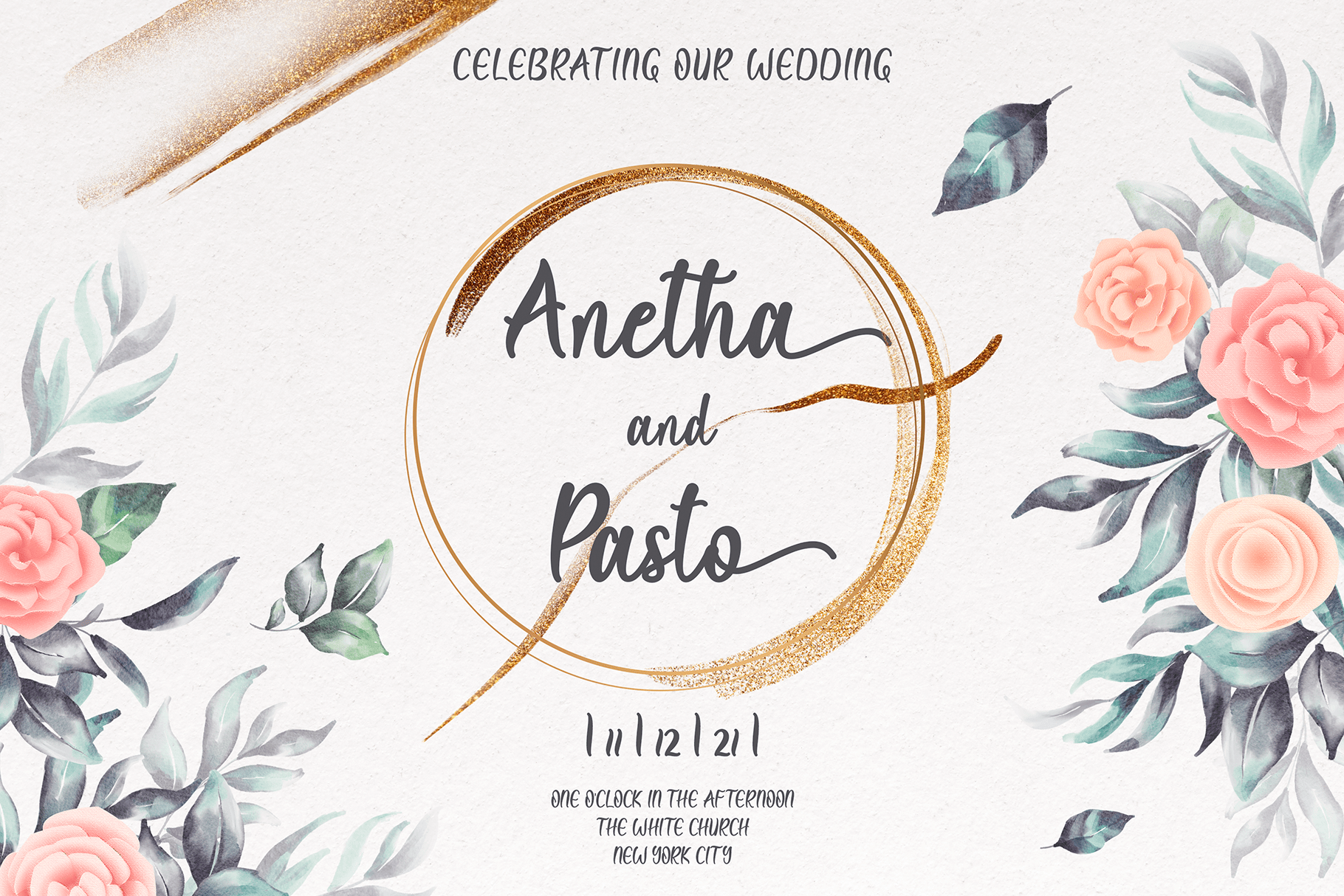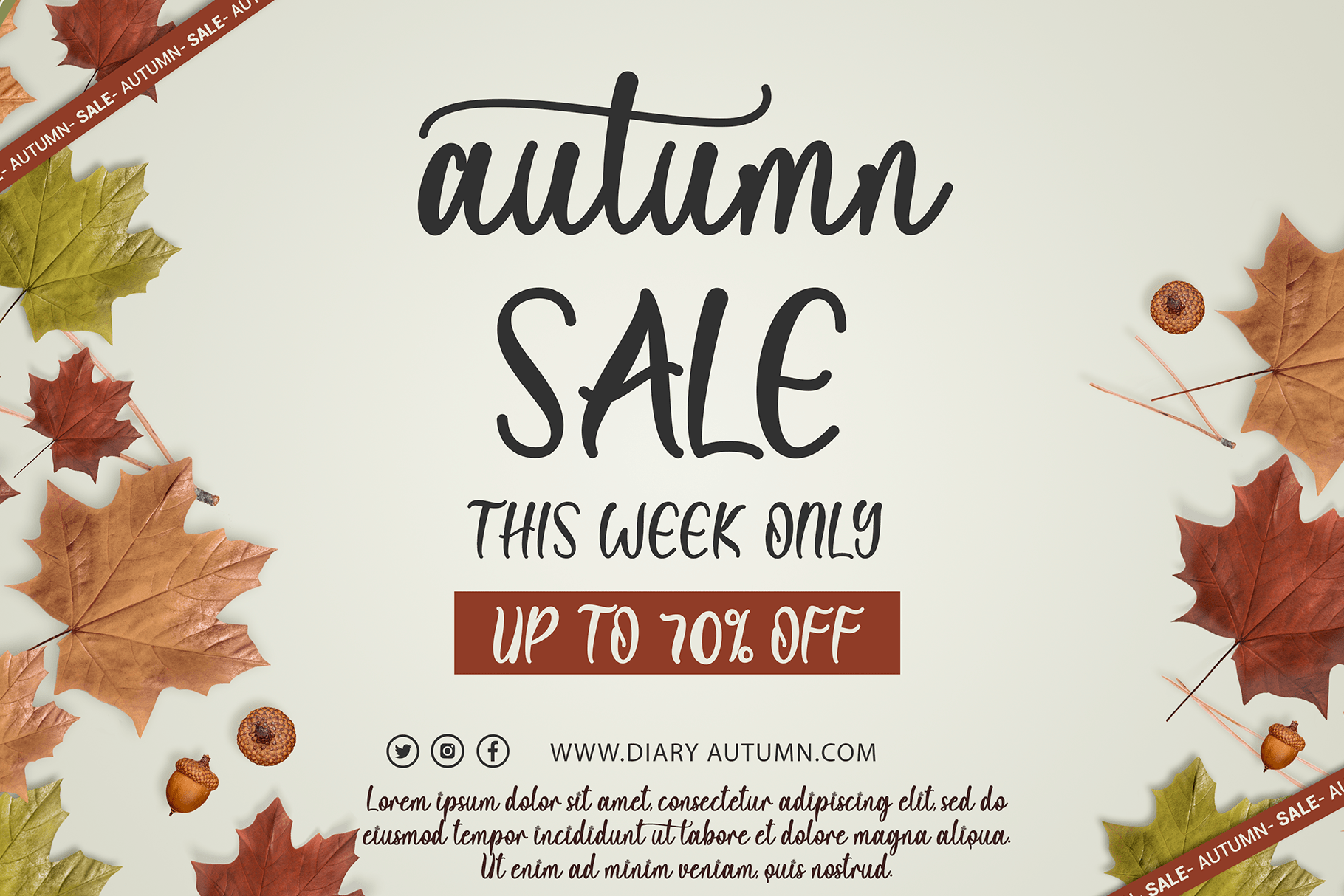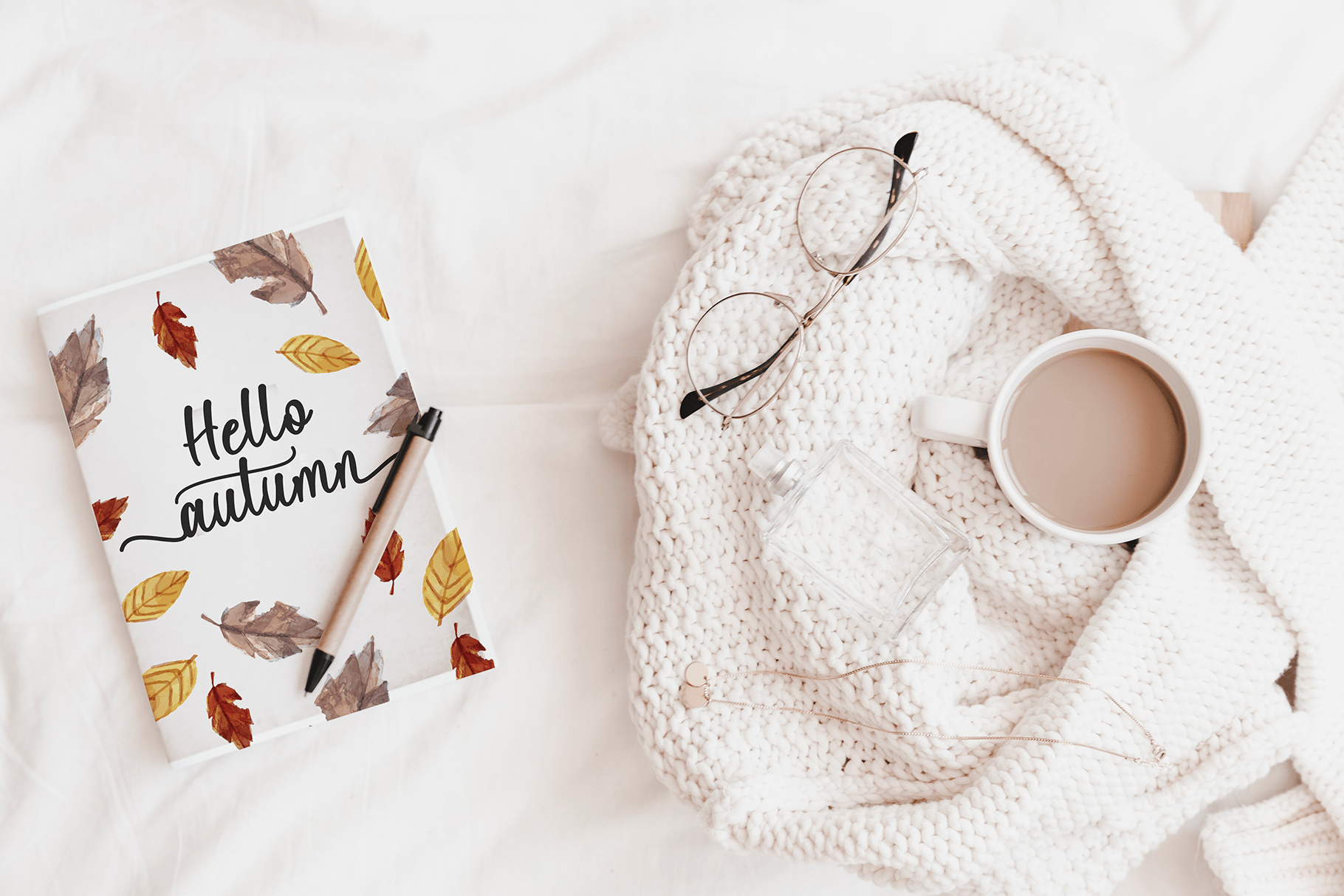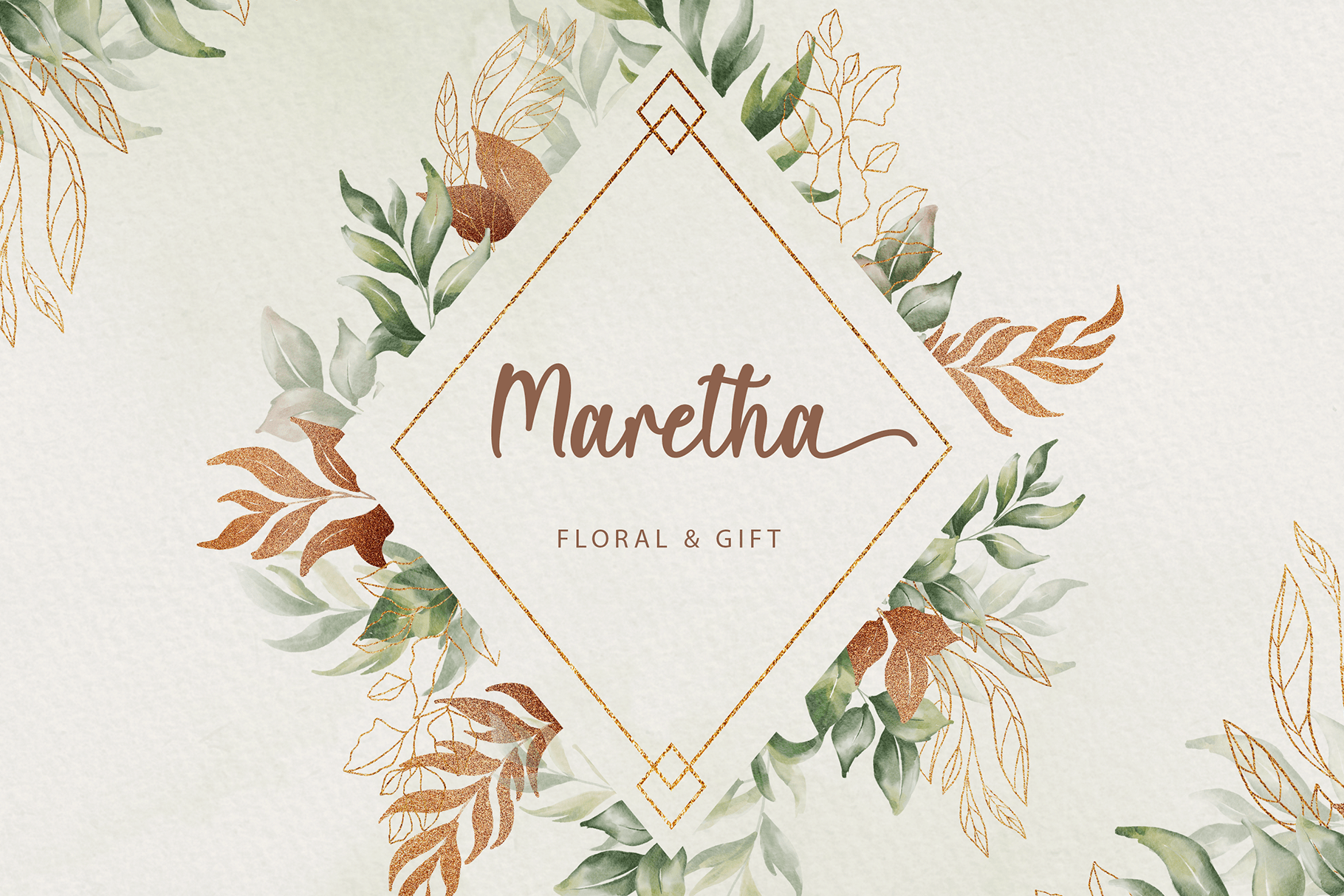
Diary Autumn Font
Diary Autumn Script Font
This is a delicate and elegant handwritten font. Its distinct and well balanced letters make this font a masterpiece. Diary Autumn is PUA encoded which means you can access all of the glyphs and swashes with ease!